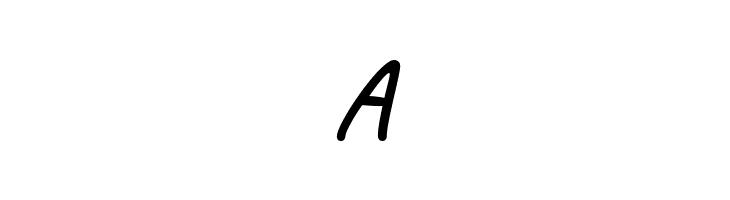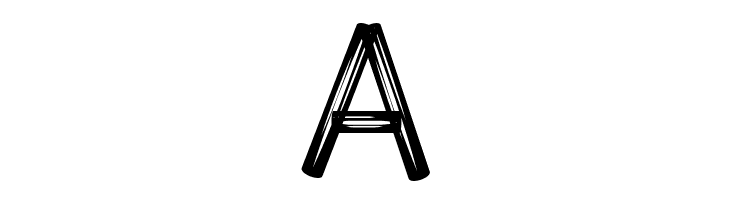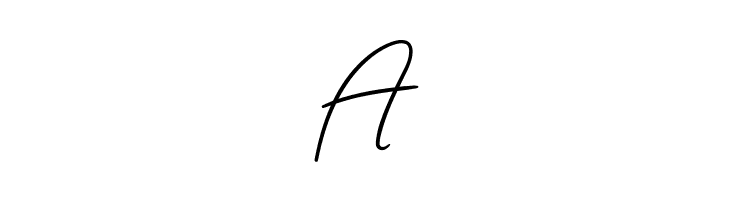
• lovemy
A modern, elegant script font with fluid, expressive letterforms.
• Lover Bright Regular
A 3D block font with bold outlines and geometric style.
• Lover Regular
A 3D block font with outlined characters and shadow effects.
• Lovera Personal Use
A modern serif font with elegant, slightly condensed letterforms and subtle serifs.
• Loverine
A playful, handwritten cursive font with smooth, flowing curves.
• Lovestreet Script Signature
A charming and elegant script font with fluid, connected letterforms.
• LoveSummer
A playful, handwritten font with smooth, flowing strokes and a casual vibe.
• LoveyDovey-Regular
A whimsical, decorative font with playful embellishments and a hand-drawn style.
• Lovie
A playful and casual script font with smooth, flowing lines.
• Loving Stay
A playful, hand-drawn font with bold, sketch-like outlines.
• LovingYou
A lively, expressive handwritten font with fluid, dynamic strokes.
• Lovlia
A delicate, flowing script font with elegant, cursive forms and smooth curves.
• Lower East Side
A bold, graffiti-inspired font with dynamic, high-contrast letters.
• LT Bulletin Medium
A modern sans-serif font with clean lines and geometric shapes.
• LT Emphasis Bold
A bold, modern font with strong, thick strokes and excellent readability.
• LT Emphasis Light